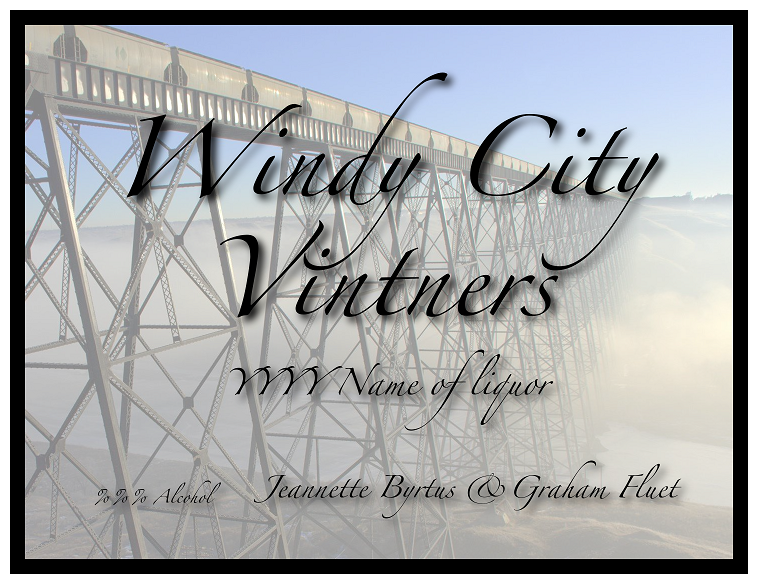
Basically I've been designing my own labels for our wine, and have grown attached to using Zapfino for the logo and names. The problem is, I have to overwrite my mac with Windows 7, and now I no longer have access to Mac OS X, and Windows does not properly support the Zapfino font.
I'll be perfectly happy to use a different font for the wine name and year, but I really like the way the "Windy City Vintners" text looks.
Would anyone be so kind as to convert "Windy City Vinters" and the names to a vector while using the same font (minus the shadow please, I can add that myself)? Attached is the svg I'm using, but it is for Inkscape and probably doesn't work right in Adobe Illustrator.